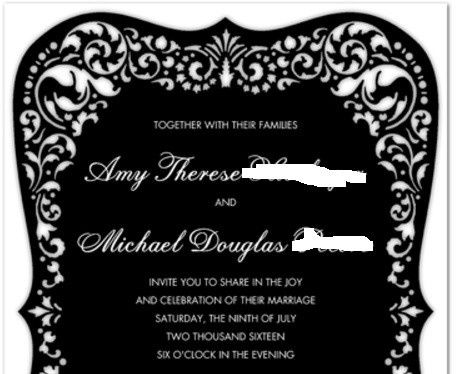
Invitation Font- pic
FH and I have decided on our invitations. I was close to ordering but realized the default font for this invitation is in all caps. I didn't really mind when I got the...